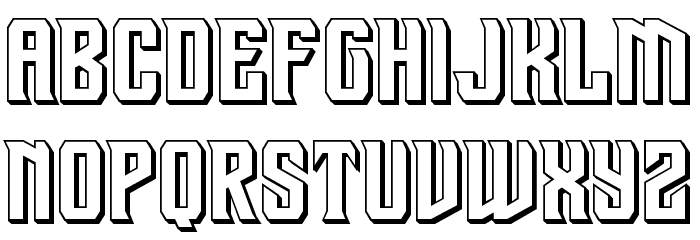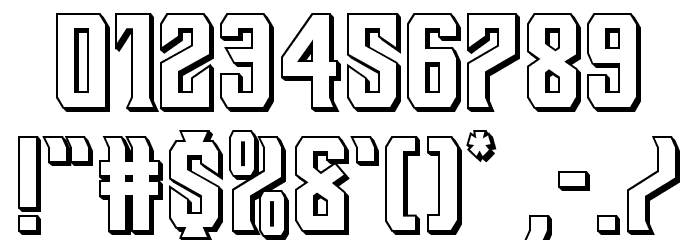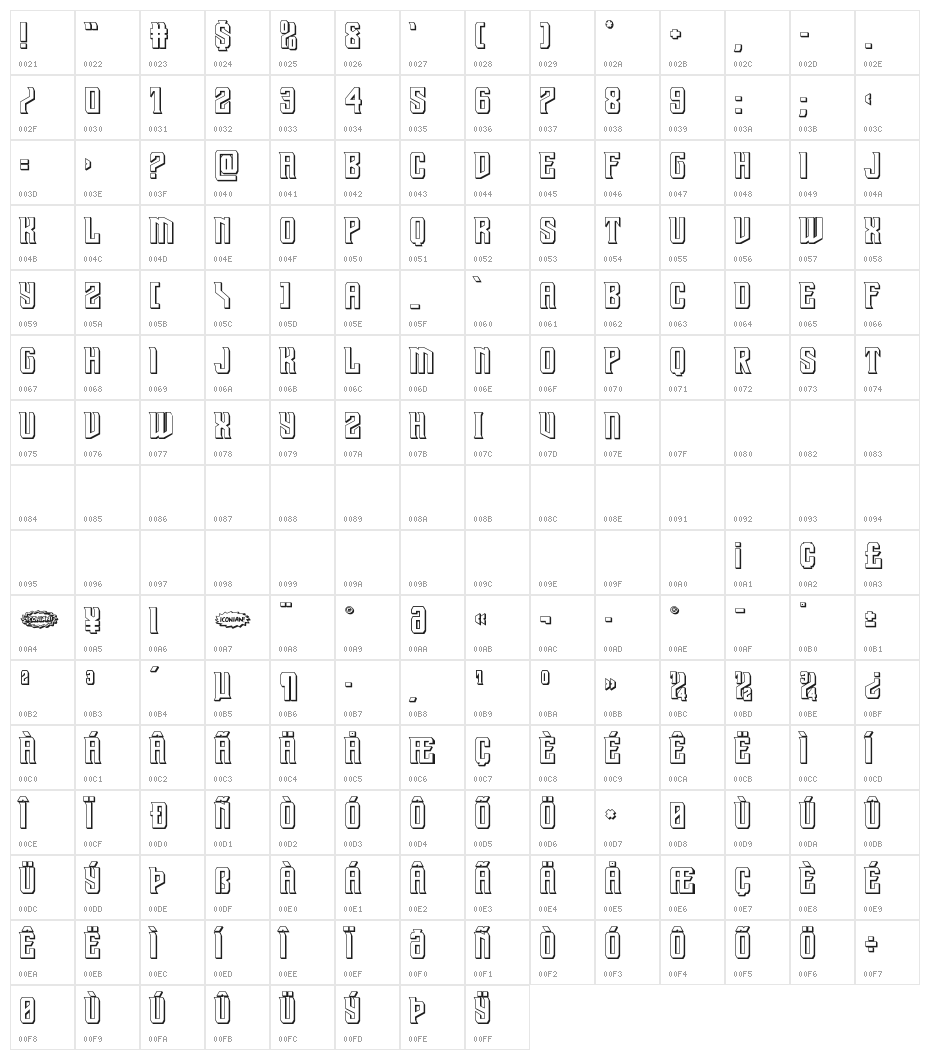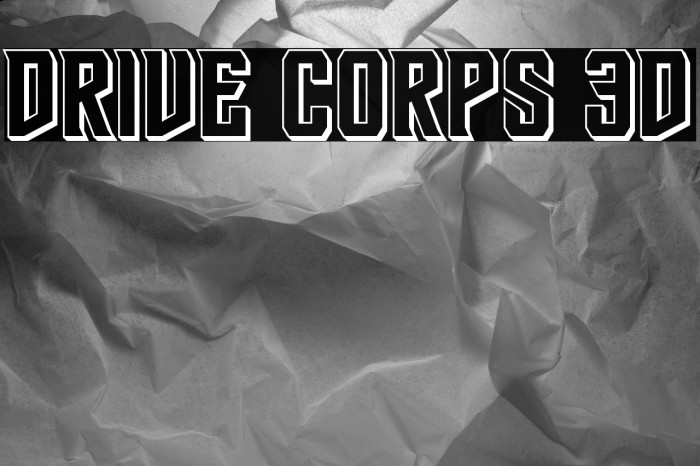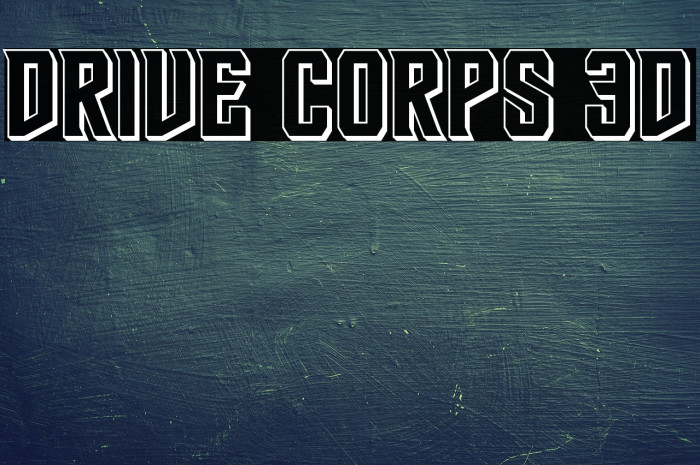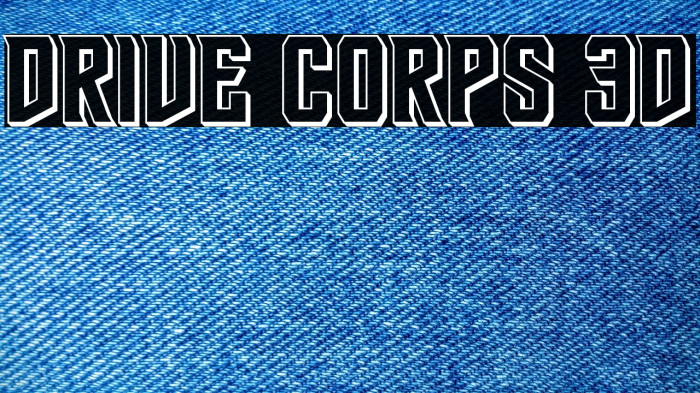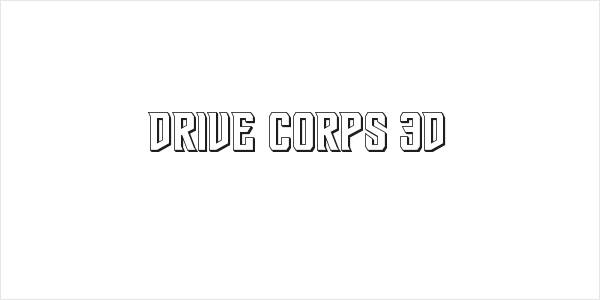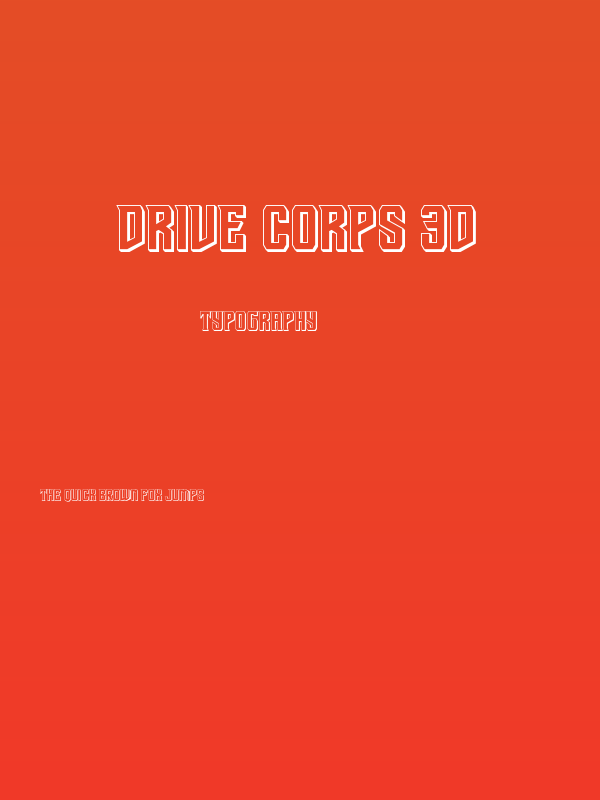
Drive Corps 3D Font
This font features a bold, three-dimensional design with a strong, geometric structure. The letters are uppercase and have a distinct shadow effect that gives them a sense of depth and solidity. The edges are sharp and angular, creating a modern and industrial look. The numbers and special characters follow the same style, maintaining consistency across the font. This design is eye-catching and suitable for projects that require a strong visual impact.
A bold, 3D geometric font with sharp, angular edges and a modern industrial look.
- Proposed Projects: Ideal for use in posters, logos, video game titles, and any project that requires a bold, impactful design.